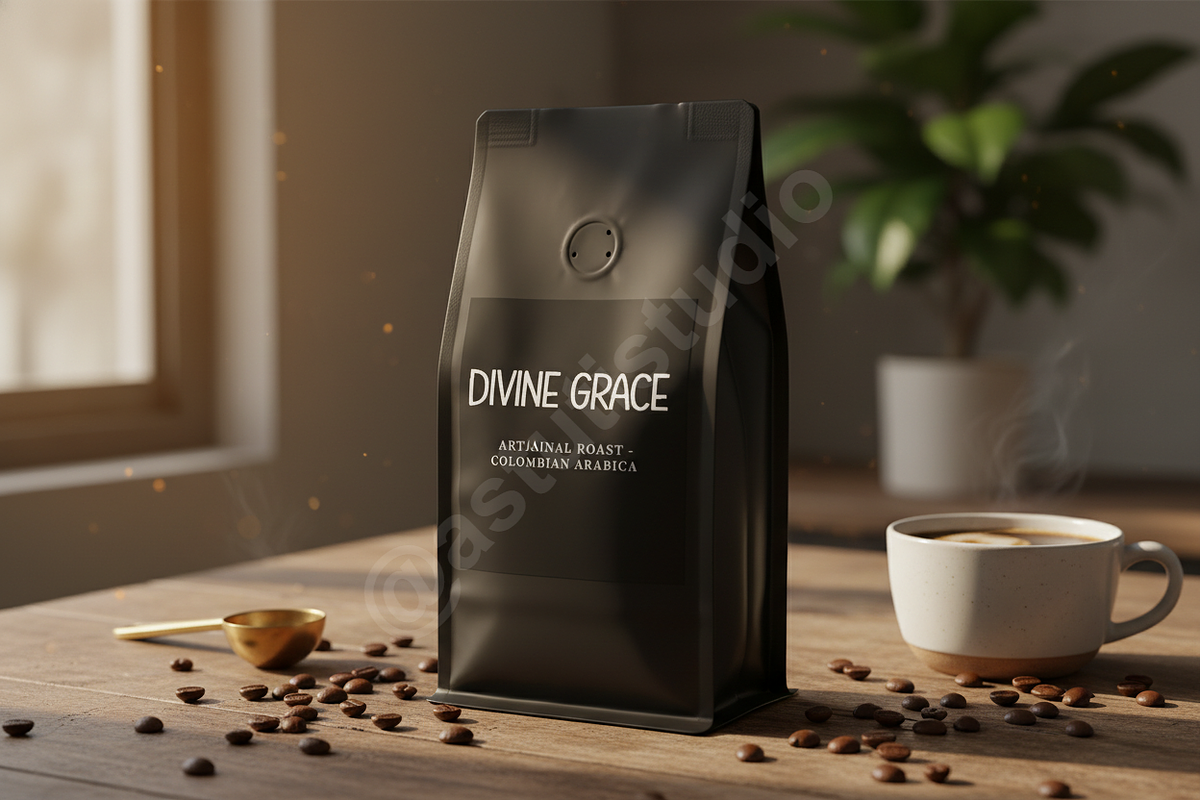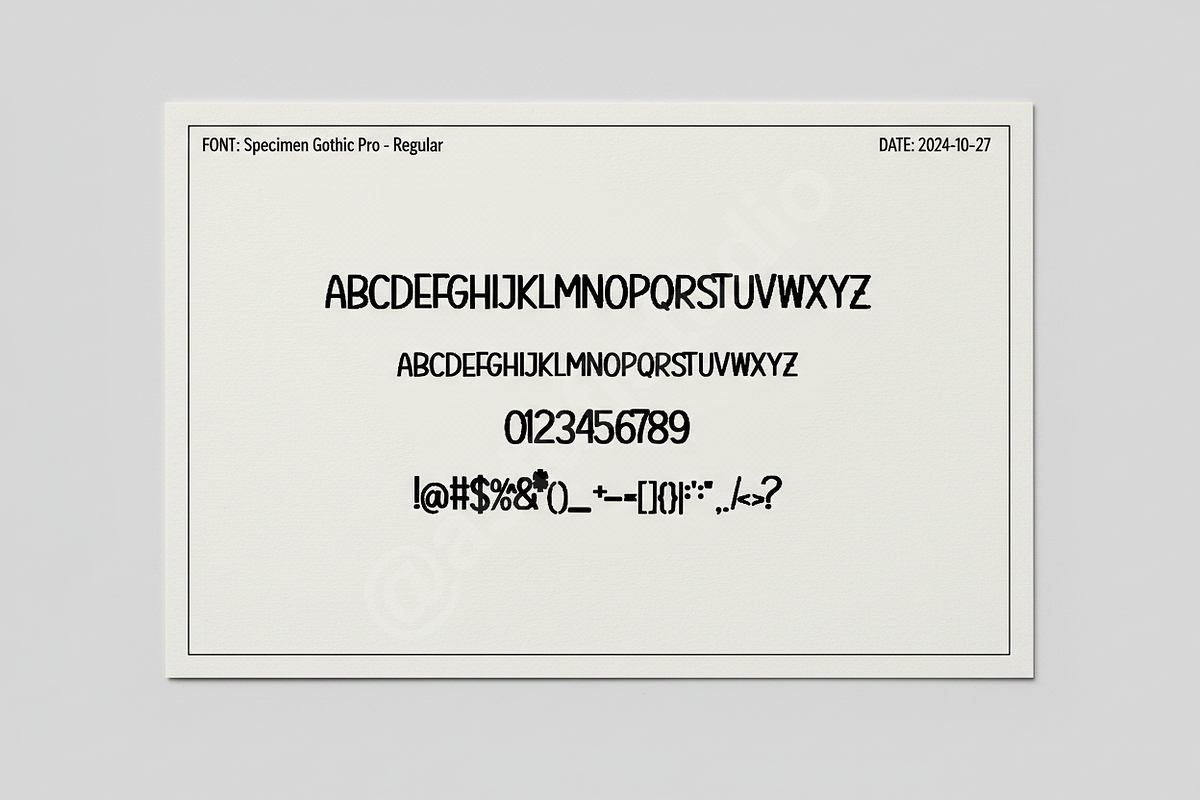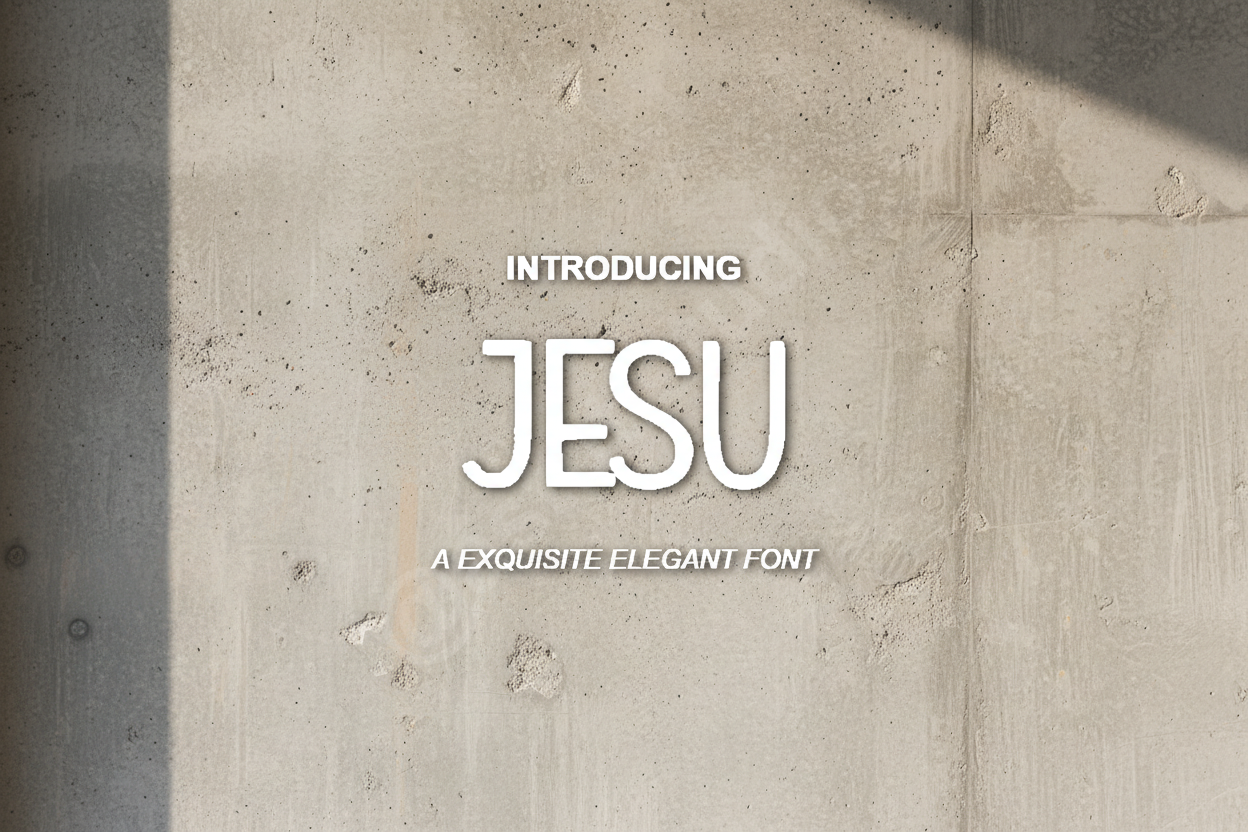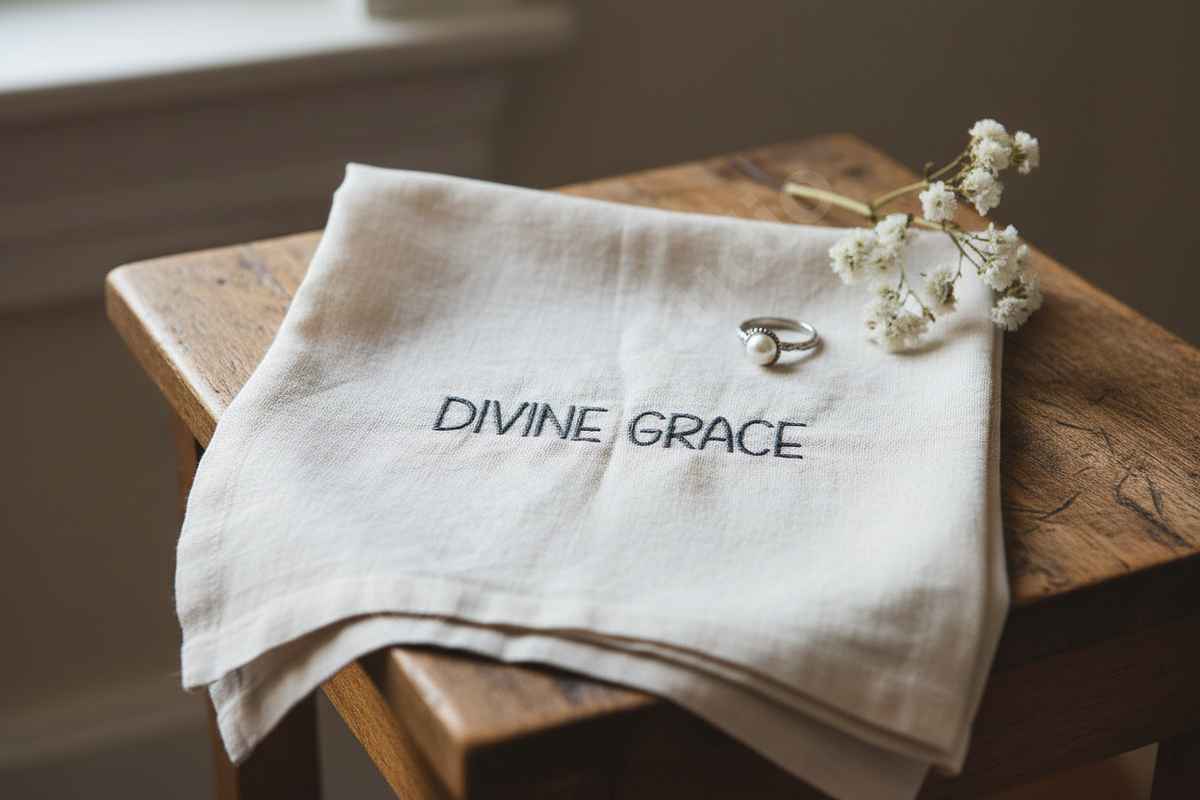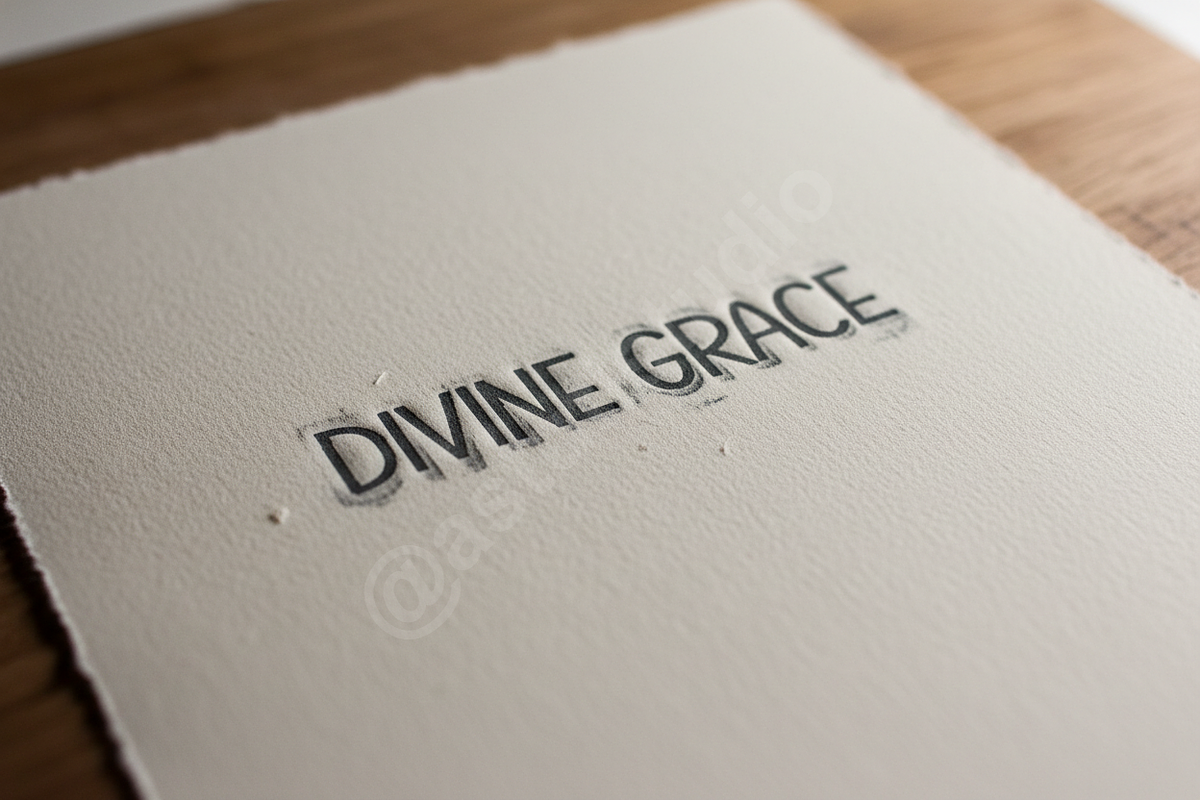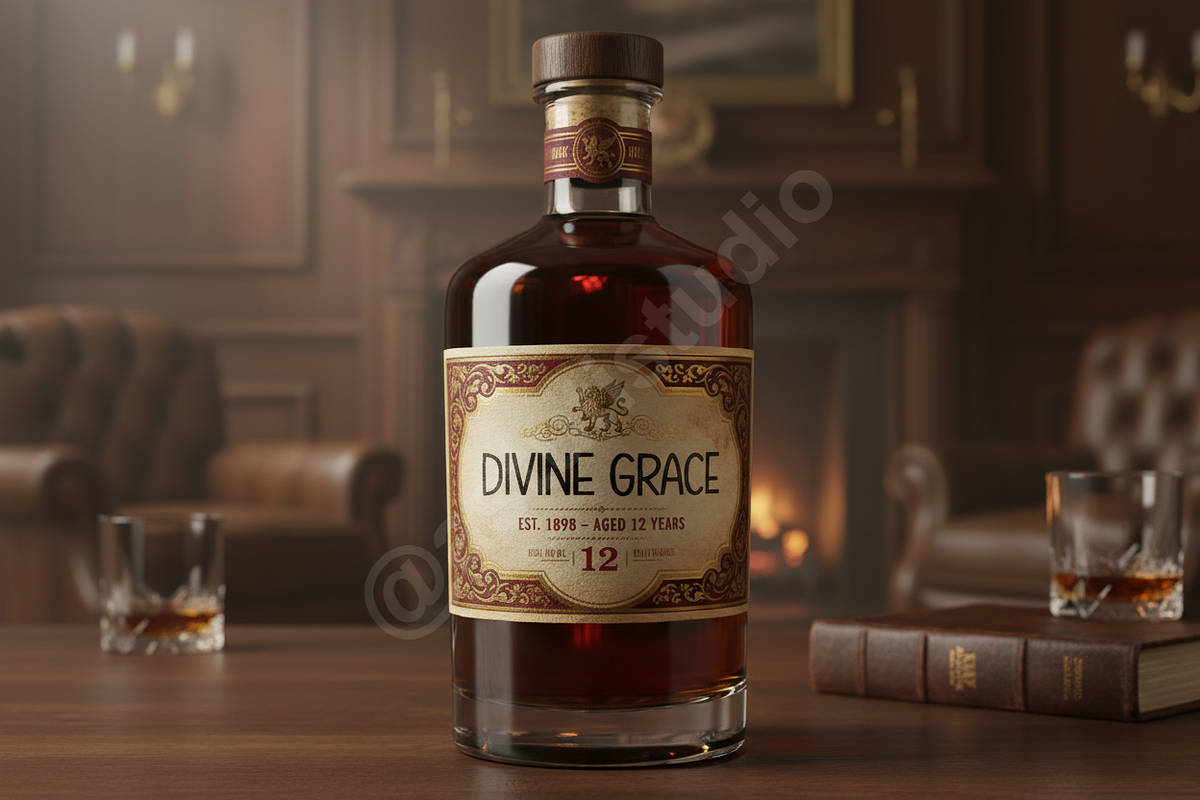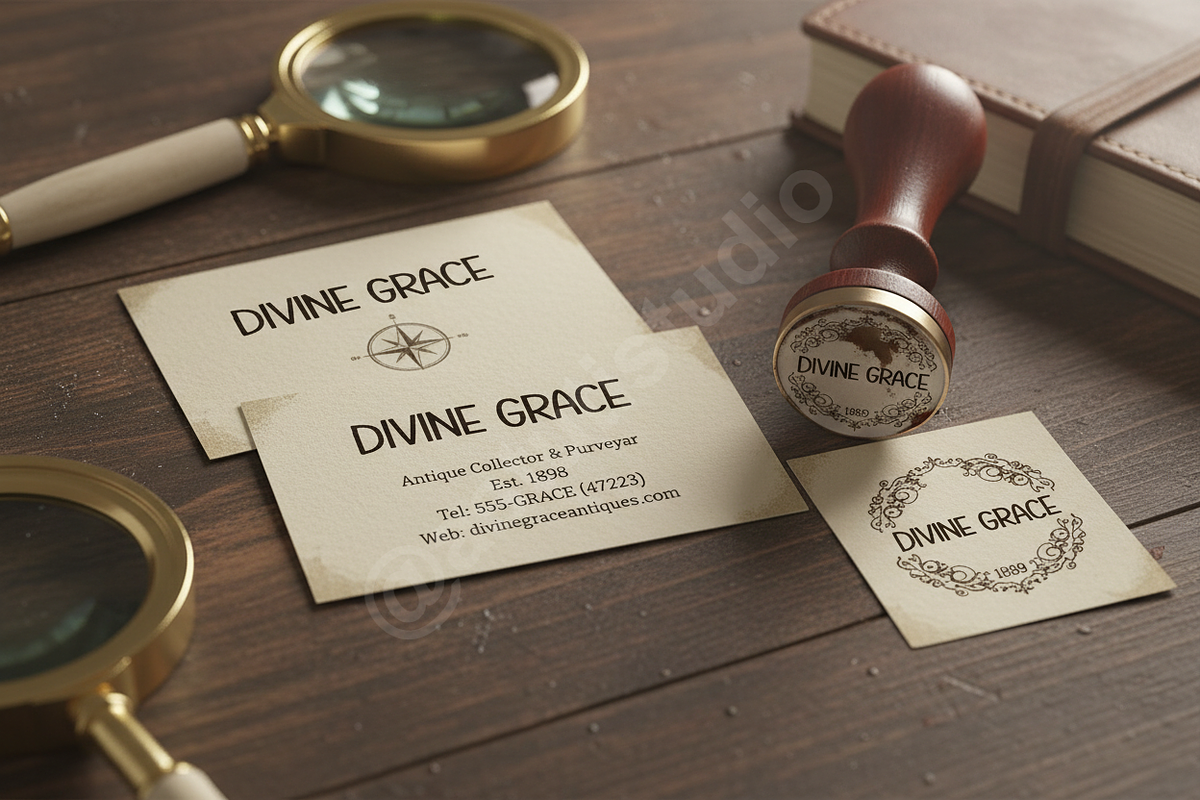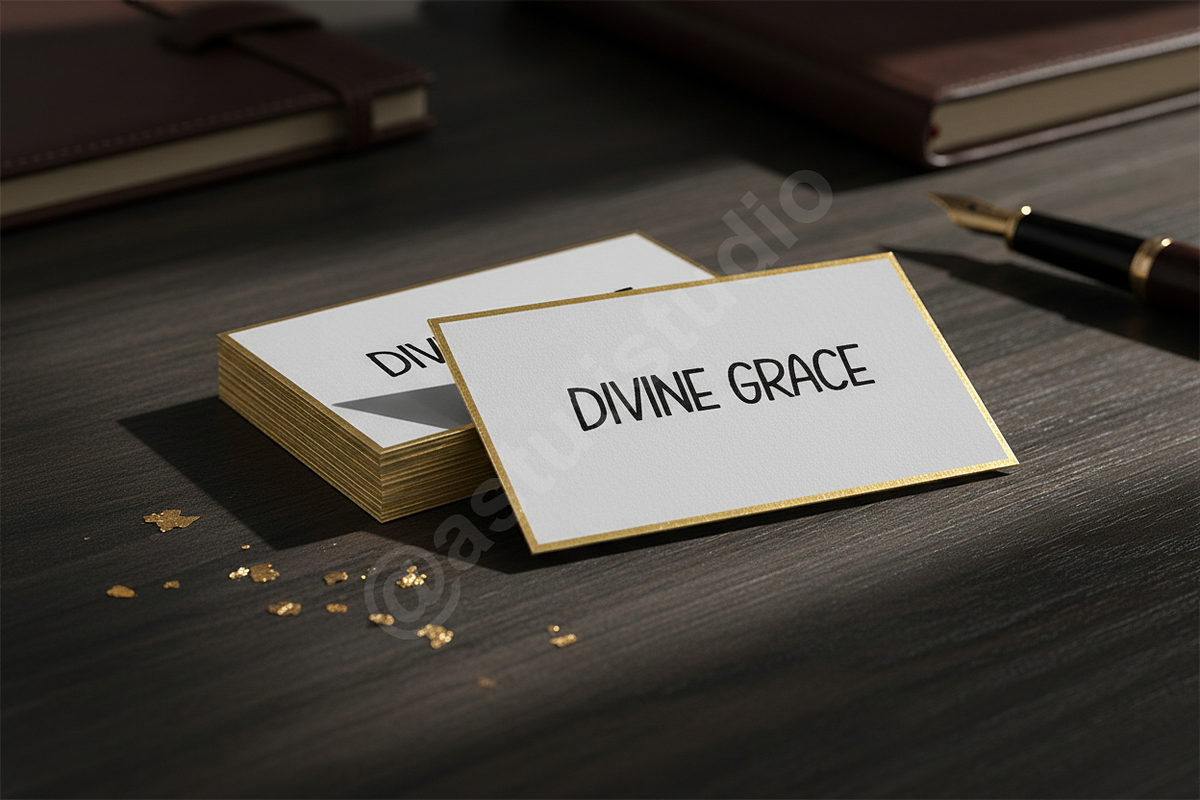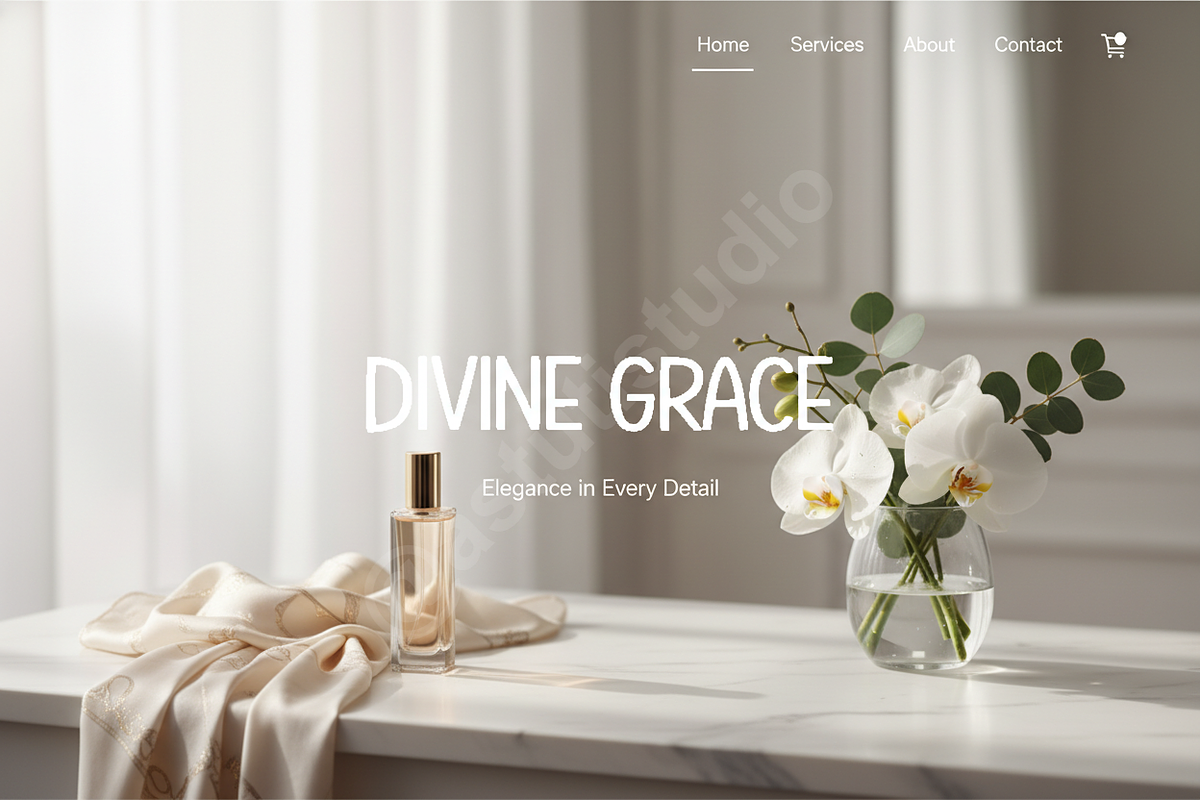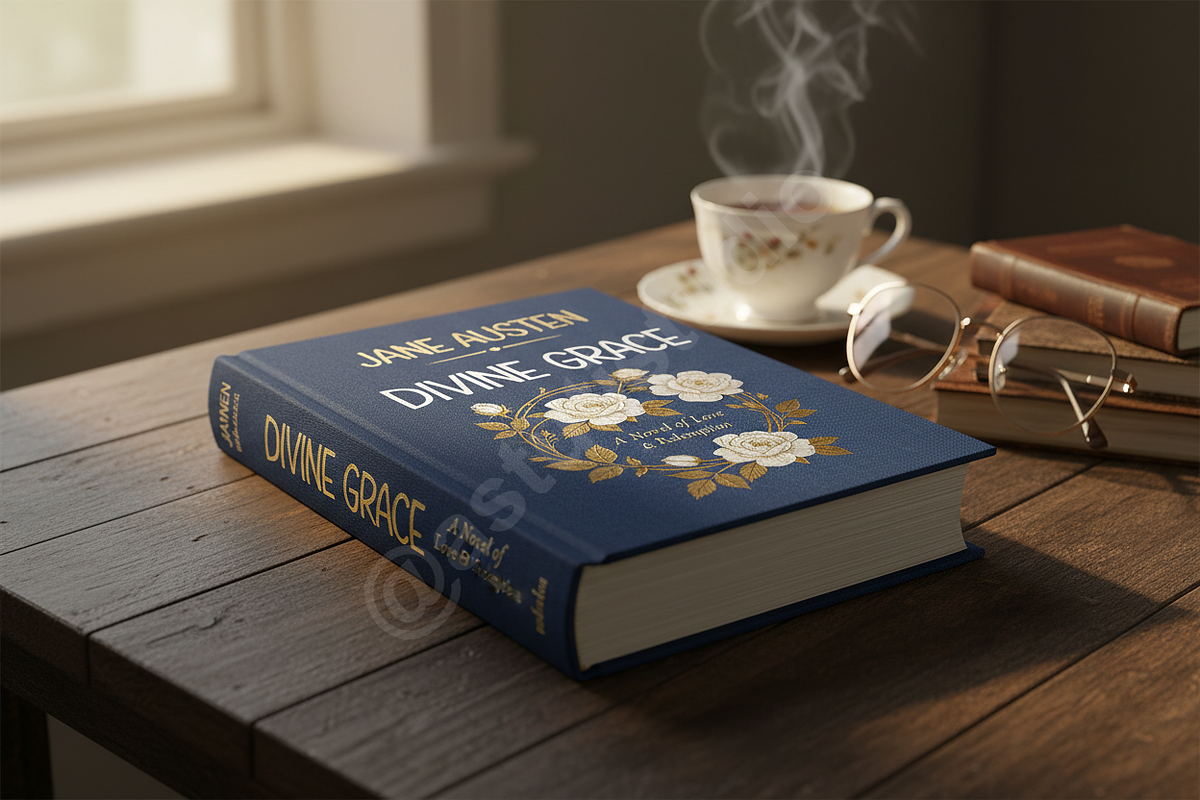
Jesu | Elegant Luxury Serif Typeface
Jesu is a sophisticated serif typeface that embodies modern elegance and timeless luxury. Designed with a focus on high contrast and fluid curves, Jesu brings a premium aesthetic to any creative project. It is the perfect choice for high-end fashion branding, editorial design, luxury packaging, and sophisticated social media content.
- High-contrast letterforms for a refined look
- Elegant ligatures and decorative alternates
- Multilingual support for global reach
- Optimized for both print and digital displays